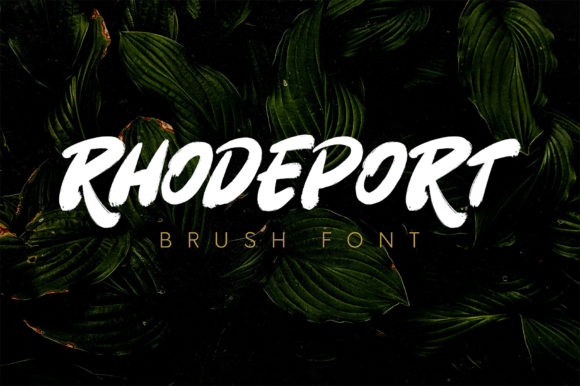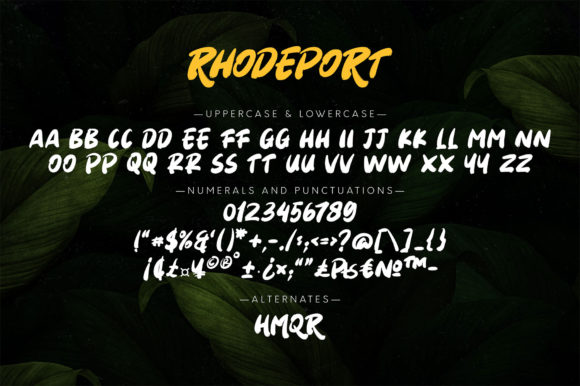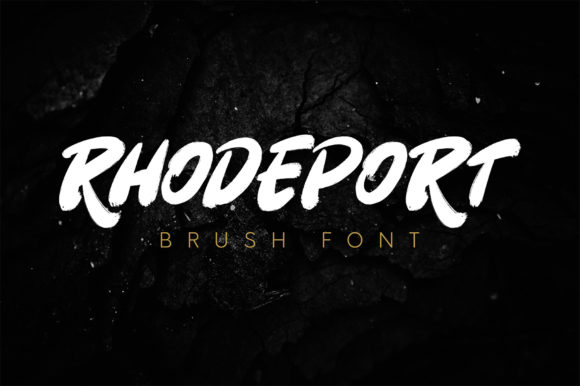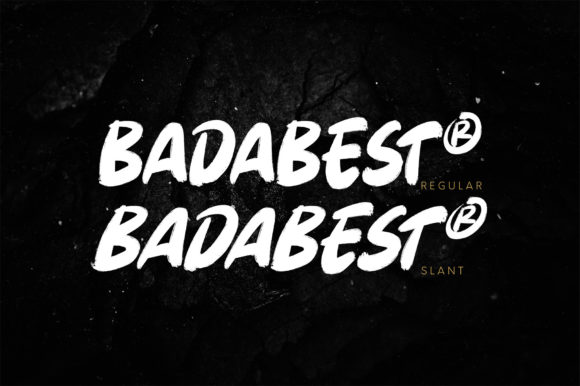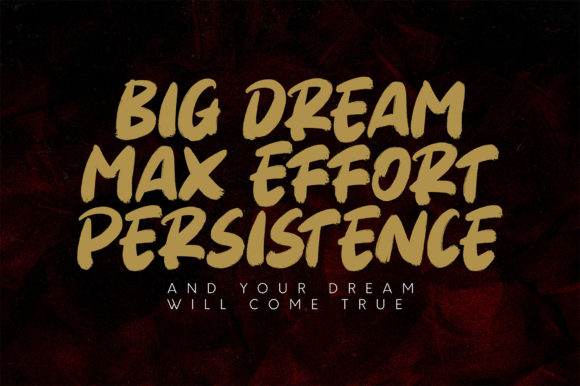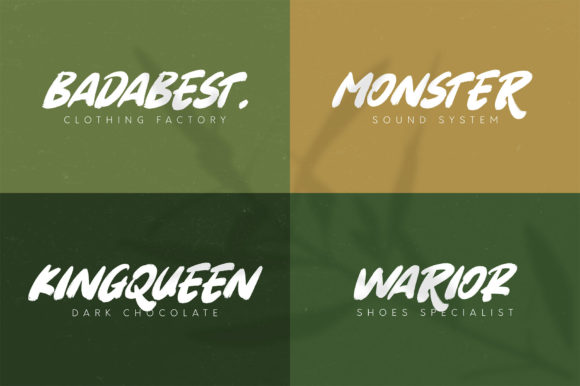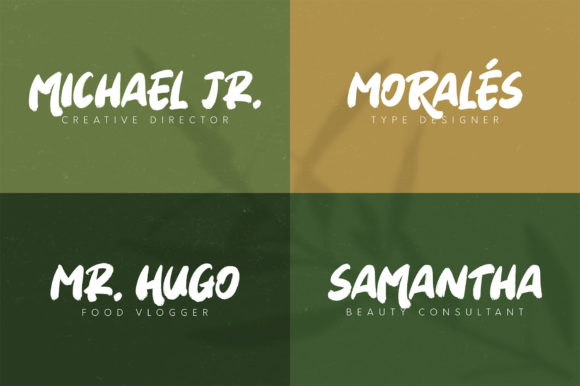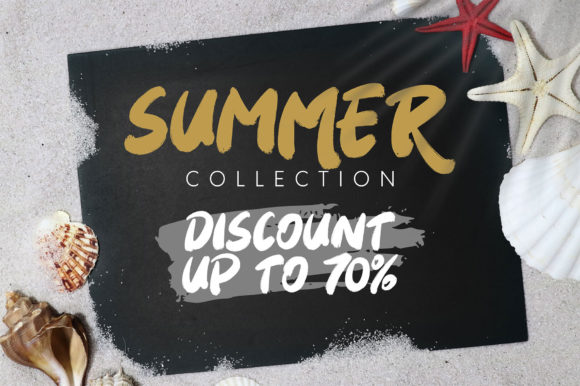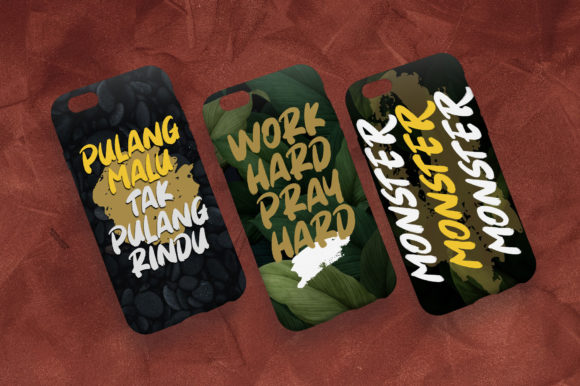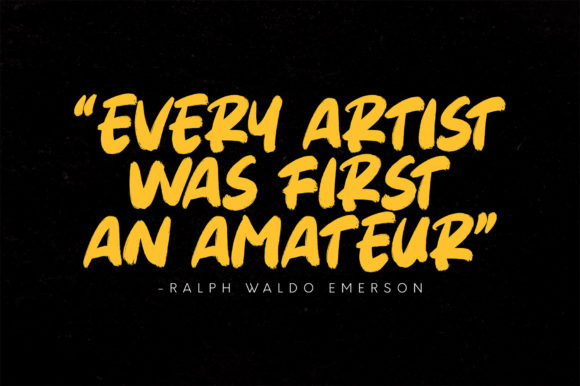
Rhodeport Font
About Rhodeport Font
Rhodeport is a bold and chunky lettered handwritten font, designed with the help of an outstanding brush pen. Whether you’re looking for fonts for Instagram or calligraphy scripts for DIY projects, this font will turn any creative idea into a true piece of art!